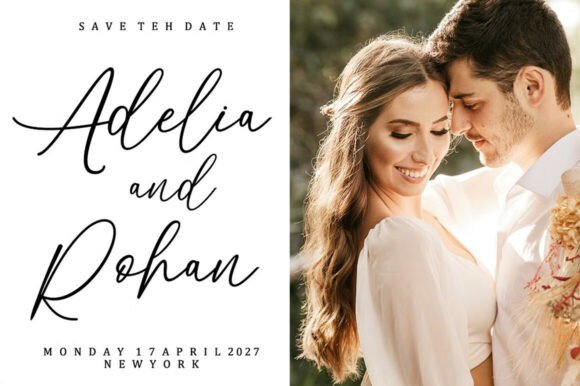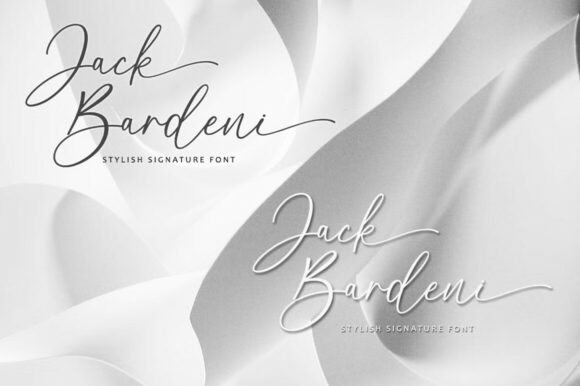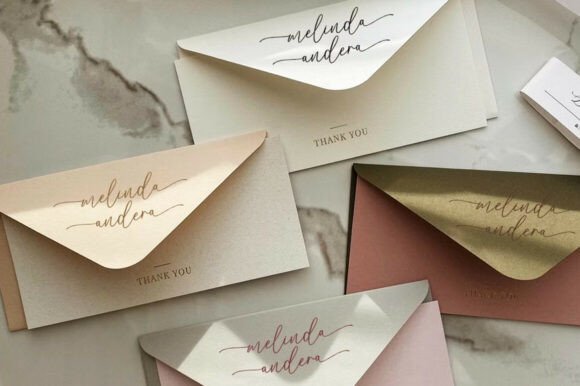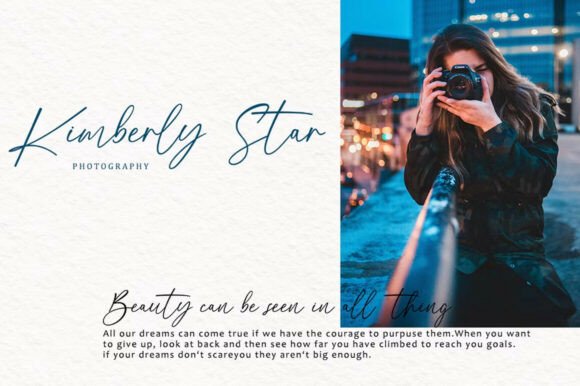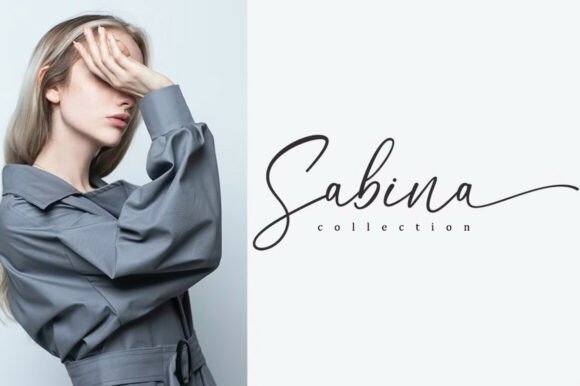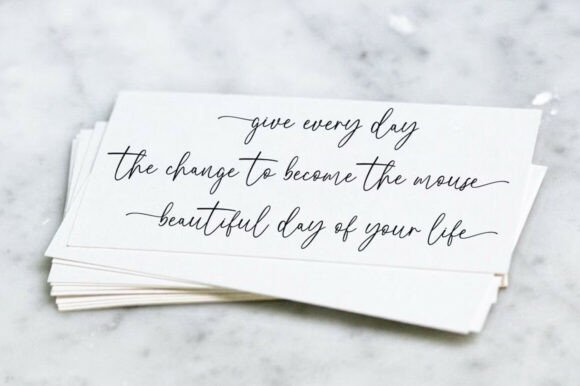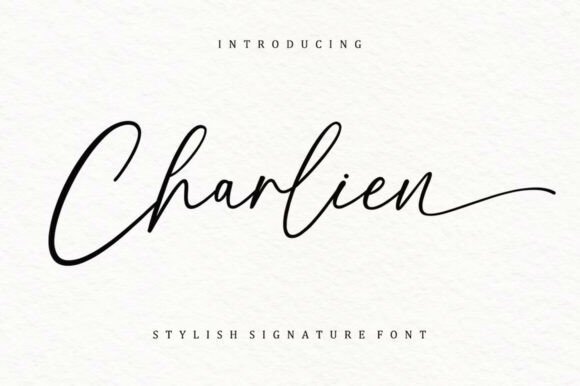
Introducing Charlien: The Elegant Signature Script Font
We are thrilled to present our latest design addition, the “Charlien // Signature Script Font”. This stunning script font is meticulously crafted to bring a touch of elegance and sophistication to your creative projects. Charlien is designed to make a statement, boasting beautiful ligatures, lovely alternates, and a very beautiful stroke that exudes refinement.
What Makes Charlien Special?
Charlien is not just another script font; it’s a comprehensive design solution that caters to a wide range of creative needs. Here are some of the key features that make Charlien stand out:
- Uppercase and Lowercase Letters: Charlien includes a full set of uppercase and lowercase letters, ensuring versatility in your typography.
- Numbers and Punctuation: The font comes with a complete set of numbers and punctuation marks, making it a practical choice for various design projects.
- Beautiful Ligatures: One of the highlights of Charlien is its beautiful ligatures. These special character combinations add a touch of elegance to your text, making it perfect for high-end designs.
- Lovely Alternates: Charlien offers a range of alternate characters, allowing you to customize your text and add a unique flair to your designs.
- Multilingual Support: Charlien supports multiple languages, making it an excellent choice for designers working on international projects.
Charlien’s versatile design makes it suitable for a wide range of projects, including:
- Wedding Projects: Add a touch of romance and elegance to your wedding invitations, stationery, and decor with Charlien.
- Invitations: Whether it’s a formal event or a casual gathering, Charlien’s script font is sure to make your invitations stand out.
- Fashion: Use Charlien to create stunning fashion-related designs, such as branding, packaging, and advertising materials.
- And More: The possibilities are endless with Charlien. You can use it for brochures, posters, business cards, and any other design project that requires a touch of sophistication.
Why Designers and Crafters Will Love Charlien
As a designer or crafter, you’re always on the lookout for high-quality design assets that can help you create stunning projects. Here are some reasons why you’ll love Charlien:
- Highly Customizable: With its range of alternates and ligatures, Charlien offers plenty of opportunities for customization. You can create unique designs that reflect your personal style or brand identity.